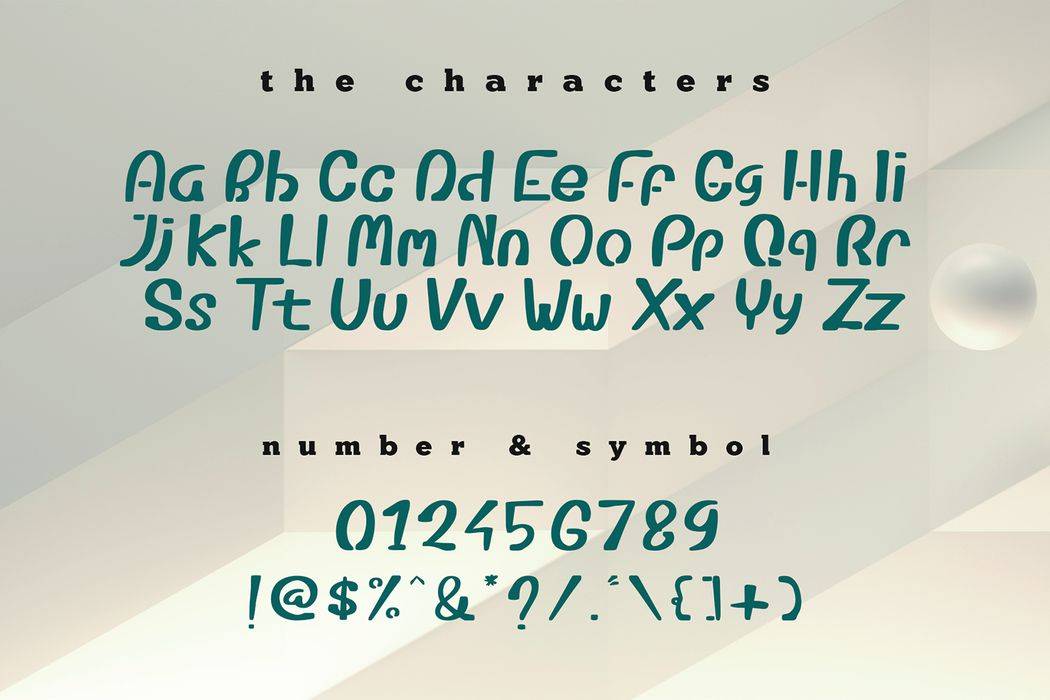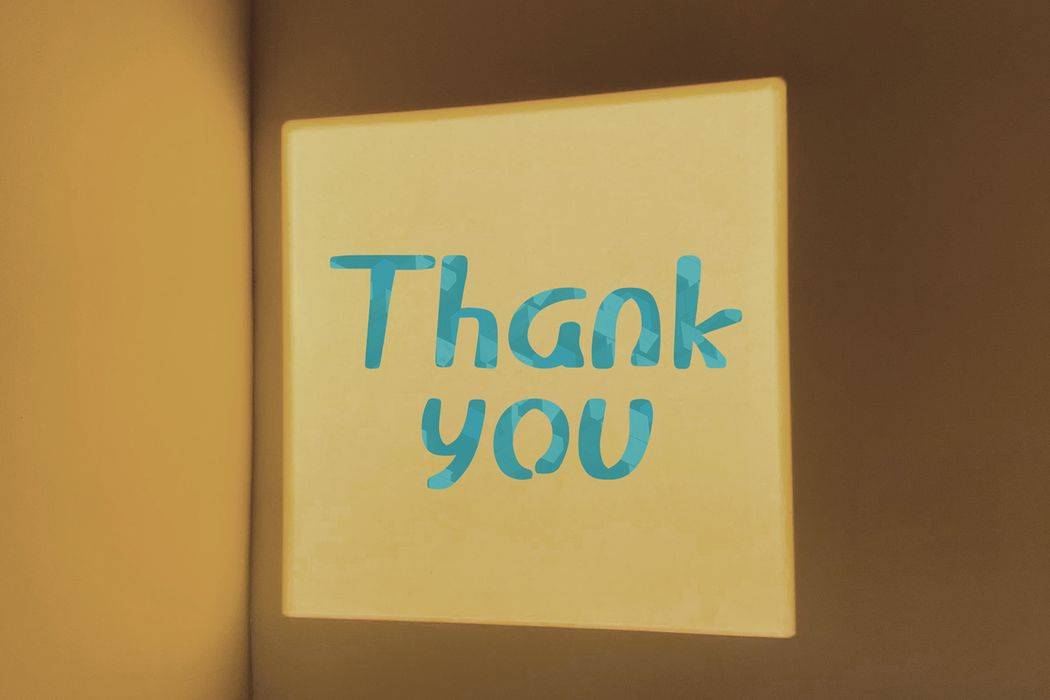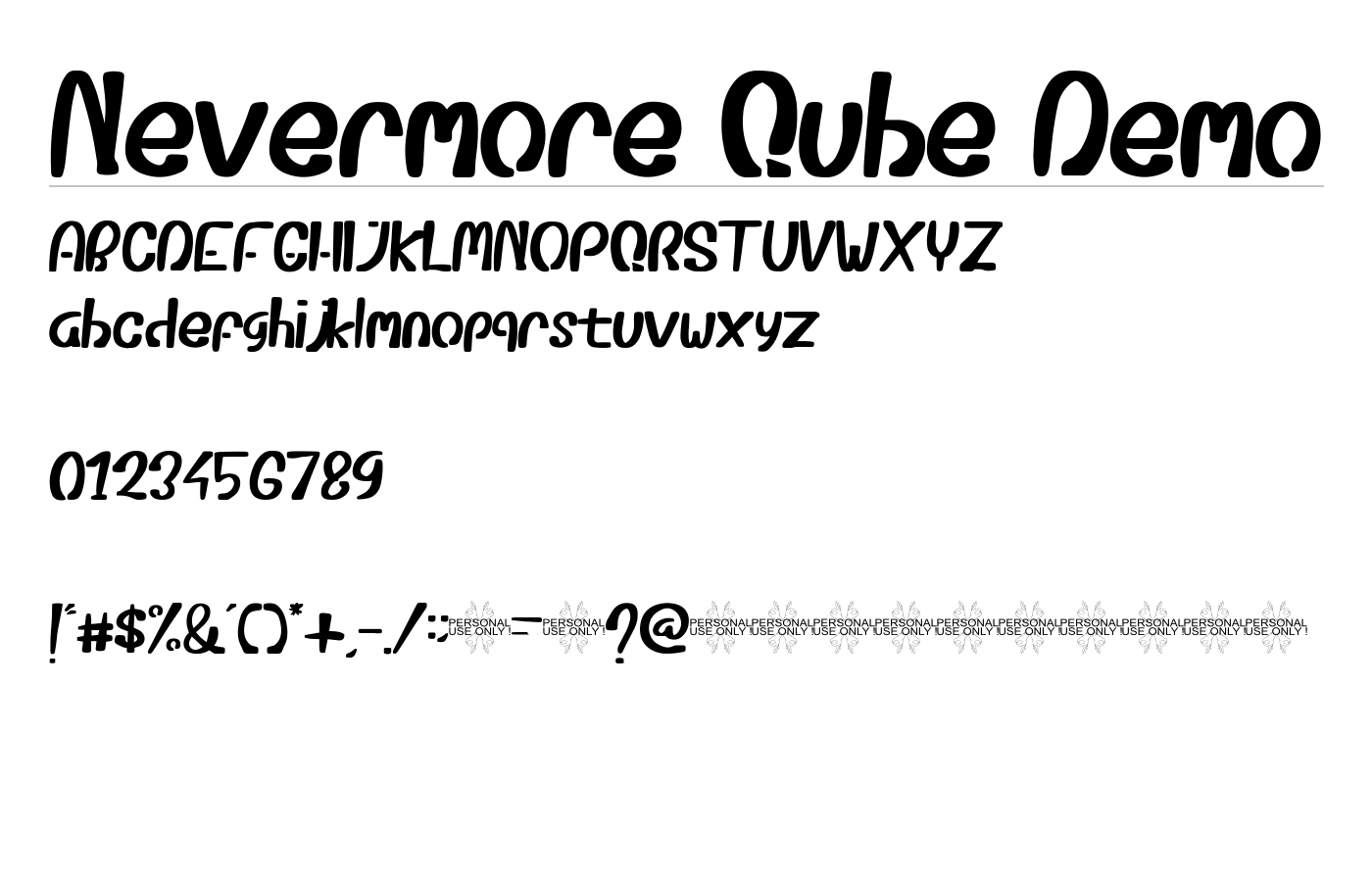
Nevermore Qube is a playful, hand-drawn sans serif font featuring rounded, quirky letterforms with a lively, irregular rhythm. Its bold, moderately condensed style with medium contrast and unique character shapes gives it a friendly and creative vibe, perfect for eye-catching headlines, logos, and casual branding. This font works well in fun, artistic contexts where personality and approachability are key.
Nevermore Qube Font
About Nevermore Qube Font